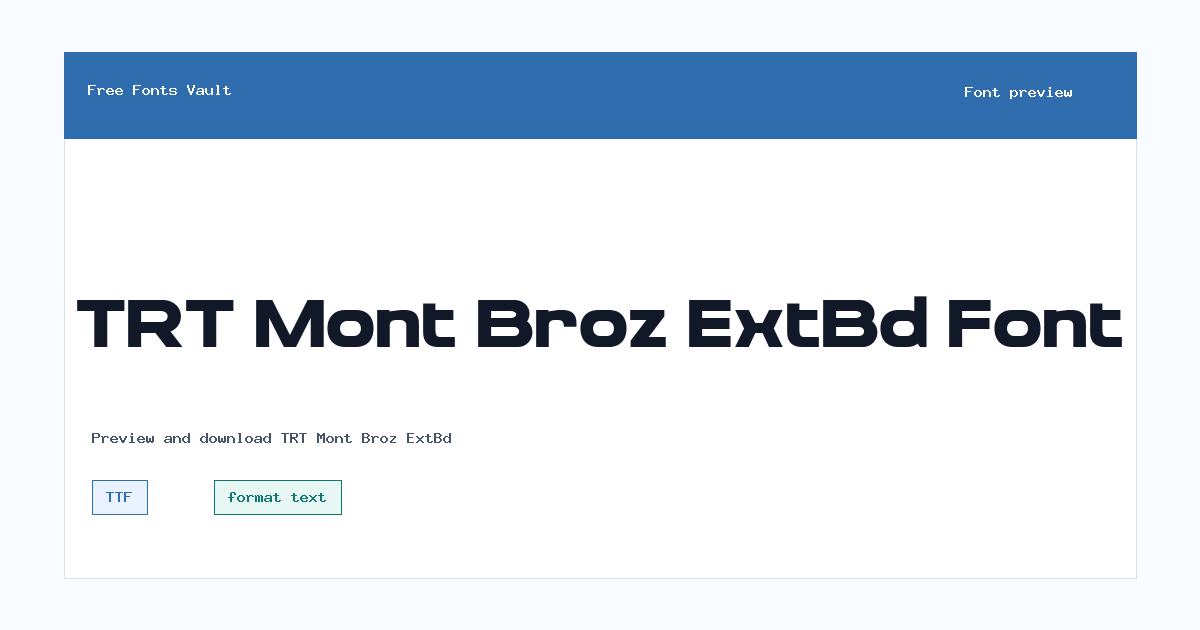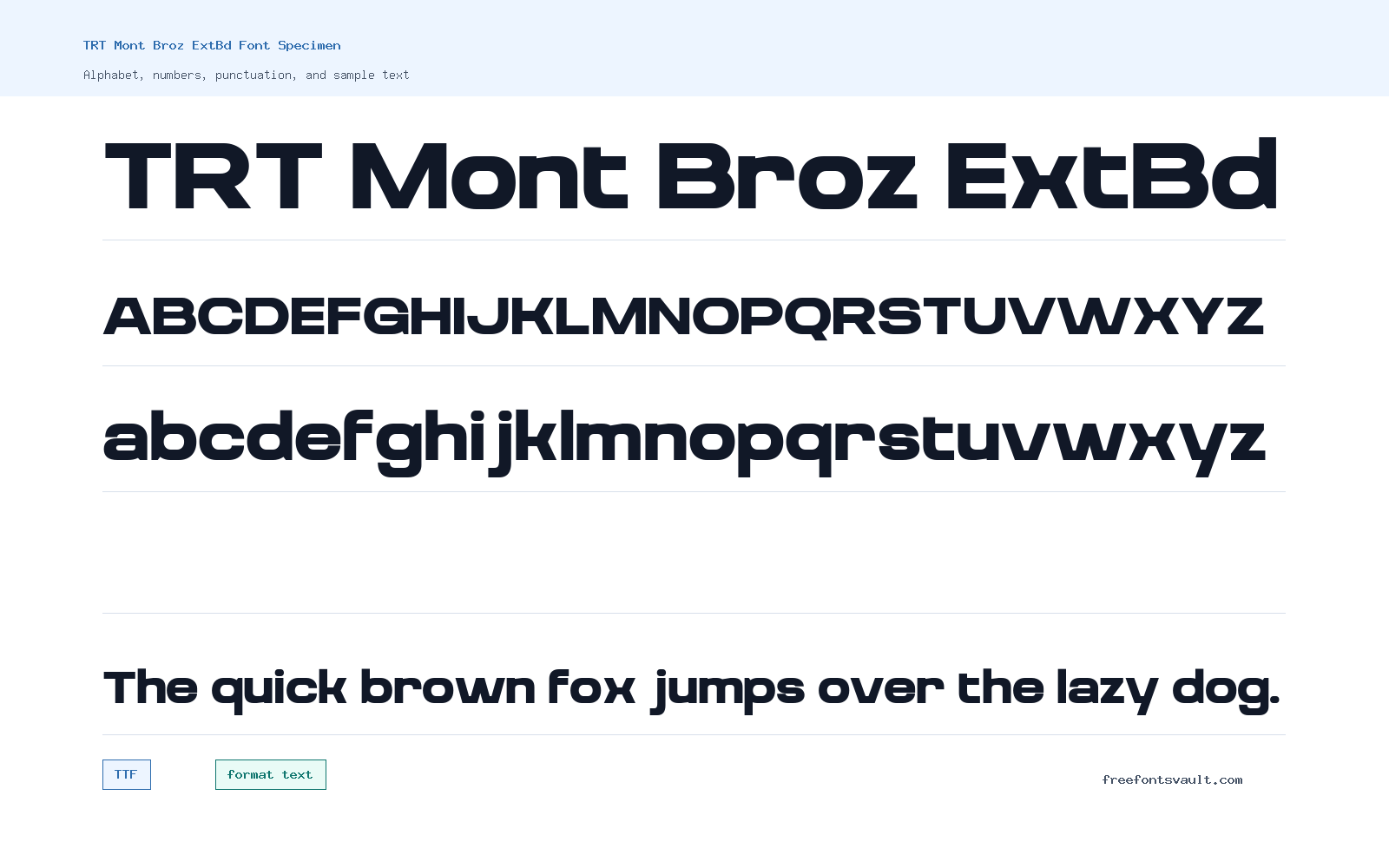
TRT Mont Broz ExtBd
TRT Mont Broz ExtBd is an extra-bold display style from the TRT Mont Broz Demo family. It has a wide, geometric feel that works best when you need strong lettering for short words, titles, and visual headlines.
About TRT Mont Broz ExtBd
TRT Mont Broz ExtBd uses heavy letterforms and a broad structure, giving it a solid display presence. The demo family is shown in sources as a geometric display typeface with multiple weights, and this download focuses on the Extra Bold style in TTF format. It is better suited to large text than long reading because the weight and width are meant to draw attention quickly.
Use it for poster titles, social graphics, thumbnails, logo mockups, packaging drafts, and bold website hero text. Keep the wording short so the shapes have room to breathe. If you are testing it in the preview tool, try uppercase headlines, brand-style names, and two- or three-word phrases. For supporting text, pair it with a simpler sans serif so the layout stays easy to read.
Extra Bold is the style to choose when the headline has to carry the layout by itself. It can give short names, event titles, and thumbnail text a wider, more industrial tone without adding outlines or effects. For cleaner results, leave enough margin around the words and avoid squeezing too many characters into one line.
- Extra-bold display weight with a wide geometric look
- Best for short headlines, titles, and high-impact text
- Poster headlines and event graphics
- Social media titles, thumbnails, and banners
- Logo concepts and branding drafts
- Packaging mockups or bold display text
For best results, use TRT Mont Broz ExtBd at large sizes with generous spacing. It can feel crowded in long paragraphs, small captions, or dense UI text, so keep it for display use and pair it with a cleaner text font for readability. Compare it against the Bold and SemiBold styles if the headline starts to feel too heavy for the design.
What kind of font is TRT Mont Broz ExtBd?
It is an extra-bold display style with a wide geometric look, best used for short headlines, posters, and title graphics.
Can I use TRT Mont Broz ExtBd for body text?
It is not ideal for body text. The extra-bold weight is better for large display lettering, while long paragraphs should use a simpler, more readable font.